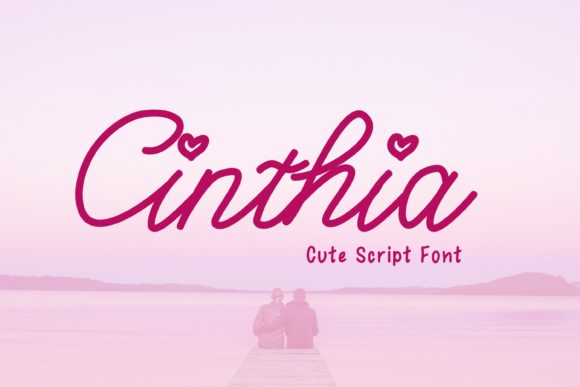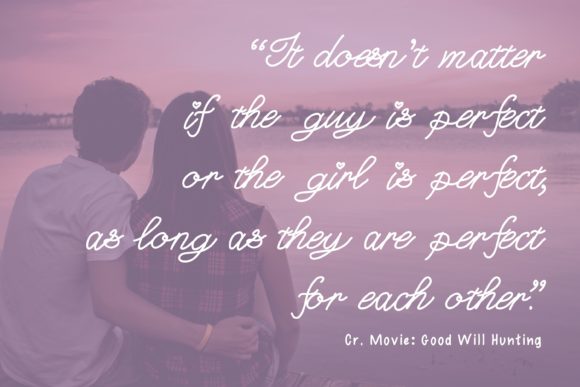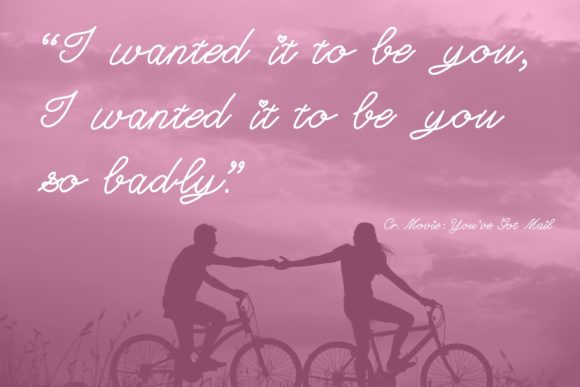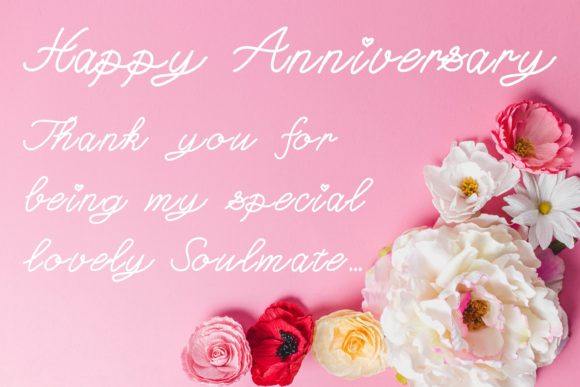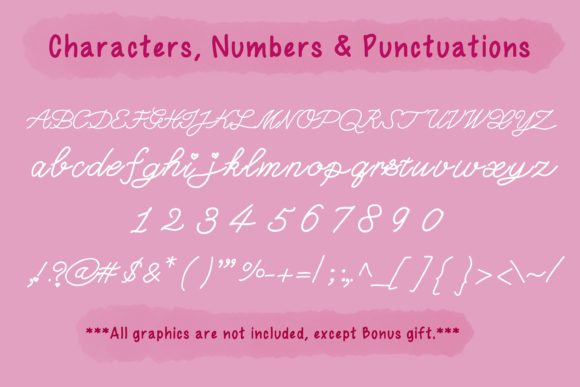
Cinthia Font
About Cinthia Font
Cinthia is a delicate and romantic script font, that emanates sophistication and elegance. Its stylish alternates and ligatures make this font the perfect match for any project.